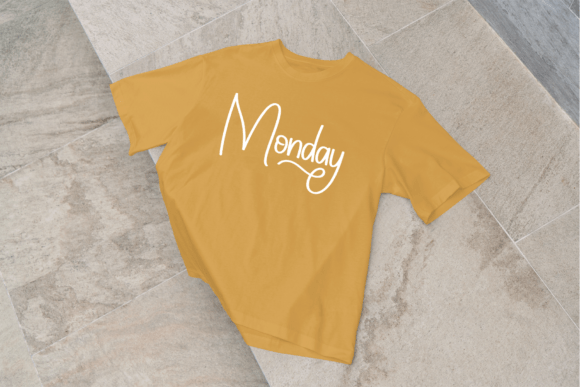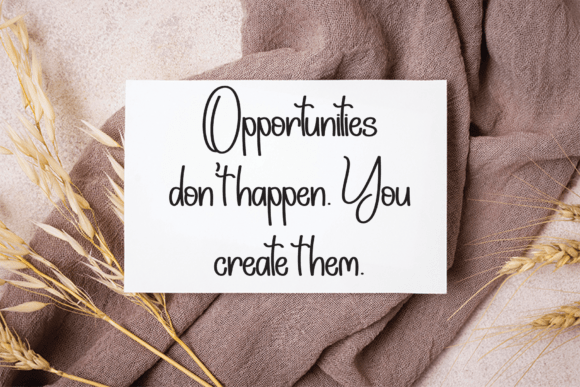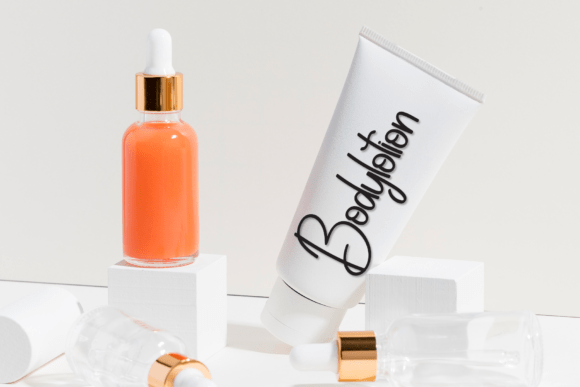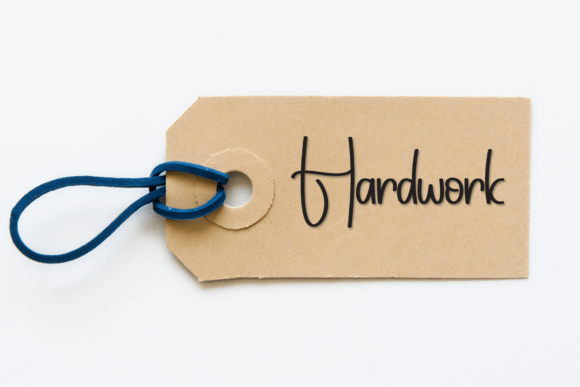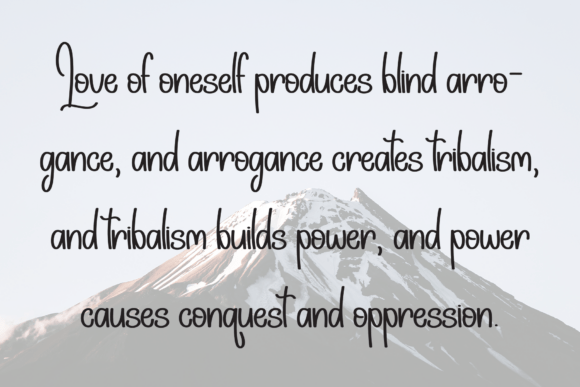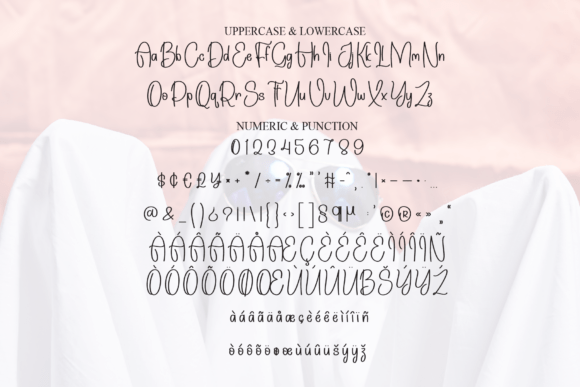
Introducing Haunting Quirky Font: The Perfect Blend of Spooky and Whimsical
Are you a designer or crafter looking for a unique and captivating font to add a touch of personality to your projects? Look no further than Haunting Quirky Font, a slender and whimsical monolinear font that embodies the perfect blend of spooky and playful. With its tall, vertically elongated letterforms and consistent, thin stroke weight, this font is sure to cast a spell on your audience.
The Characteristics of Haunting Quirky Font
Haunting Quirky Font boasts a distinctive personality that sets it apart from other fonts. Its key features include:
- Tall and slender letterforms: The font’s vertically elongated letterforms give it a sense of elegance and sophistication, while also evoking a touch of spookiness.
- Consistent, thin stroke weight: The font’s thin stroke weight creates a sense of delicacy and airiness, making it perfect for projects that require a light and playful touch.
- Bouncy alignment: The font’s bouncy alignment adds a sense of whimsy and playfulness, making it ideal for projects that require a bit of personality.
- Exaggerated, looping flourishes: The font’s flourishes are perhaps its most distinctive feature, adding a touch of drama and flair to each letterform.
Haunting Quirky Font is a versatile font that can be used for a wide range of projects, including:
- Halloween-themed event posters: The font’s spooky aesthetic makes it perfect for Halloween-themed event posters, invitations, and flyers.
- Quirky children’s book titles: The font’s playful and whimsical nature makes it ideal for children’s book titles, adding a touch of personality and charm to your project.
- Creative bullet journals: The font’s unique and eye-catching design makes it perfect for creative bullet journals, adding a touch of personality to your spreads.
- Whimsical personal blog headers: The font’s airy and rhythmic visual silhouette makes it perfect for personal blog headers, adding a touch of whimsy and personality to your online presence.
Why Choose Haunting Quirky Font?
So why choose Haunting Quirky Font for your next project? Here are just a few reasons:
- Unique and eye-catching: The font’s distinctive design makes it stand out from the crowd, adding a touch of personality to your project.
- Versatile: The font’s versatility makes it perfect for a wide range of projects, from Halloween-themed event posters to whimsical personal blog headers.
- Easy to read: Despite its playful and whimsical nature, the font is easy to read, making it perfect for projects that require a clear and concise message.
Tips for Using Haunting Quirky Font
To get the most out of Haunting Quirky Font, here are a few tips:
- Use it sparingly: While the font is eye-catching and unique, it can be overwhelming if used too much. Use it sparingly to add a touch of personality to your project.
- Pair it with a neutral font: Pairing Haunting Quirky Font with a neutral font can help to balance out its playful and whimsical nature, creating a clear and concise message.
- Experiment with different colors: The font’s airy and rhythmic visual silhouette makes it perfect for experimenting with different colors and textures.
In conclusion, Haunting Quirky Font is a unique and captivating font that is perfect for designers and crafters looking to add a touch of personality to their projects. With its slender and whimsical design, exaggerated flourishes, and versatile nature, this font is sure to cast a spell on your audience. Whether you’re creating Halloween-themed event posters, quirky children’s book titles, or whimsical personal blog headers, Haunting Quirky Font is the perfect choice.